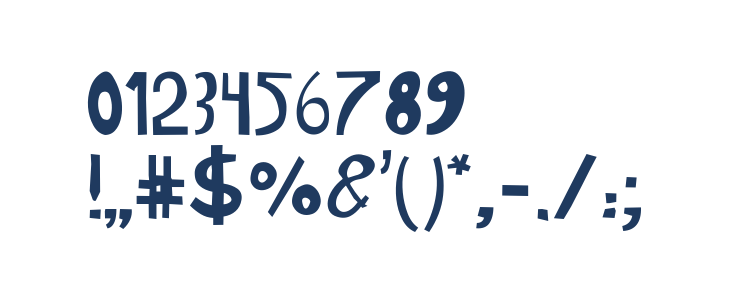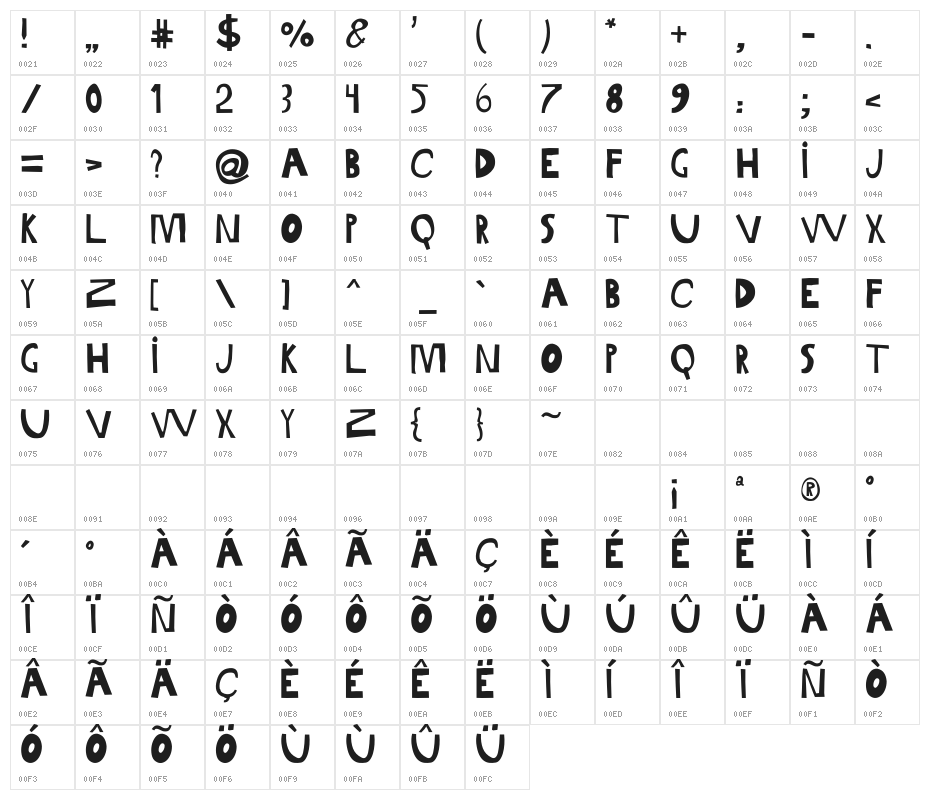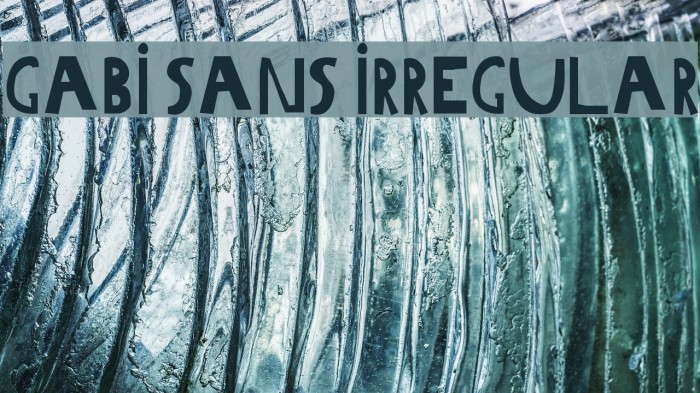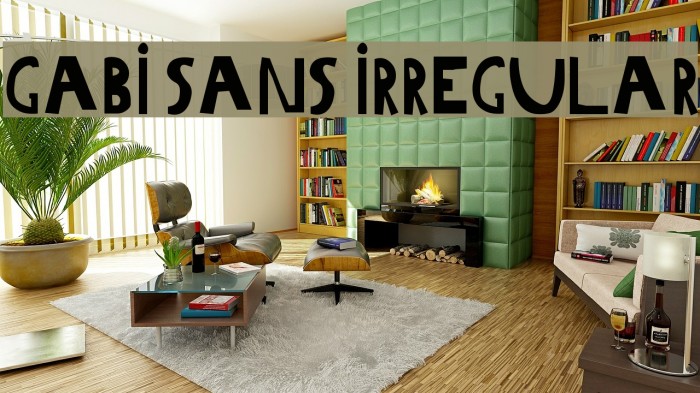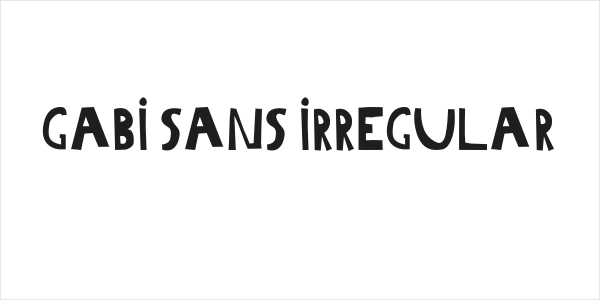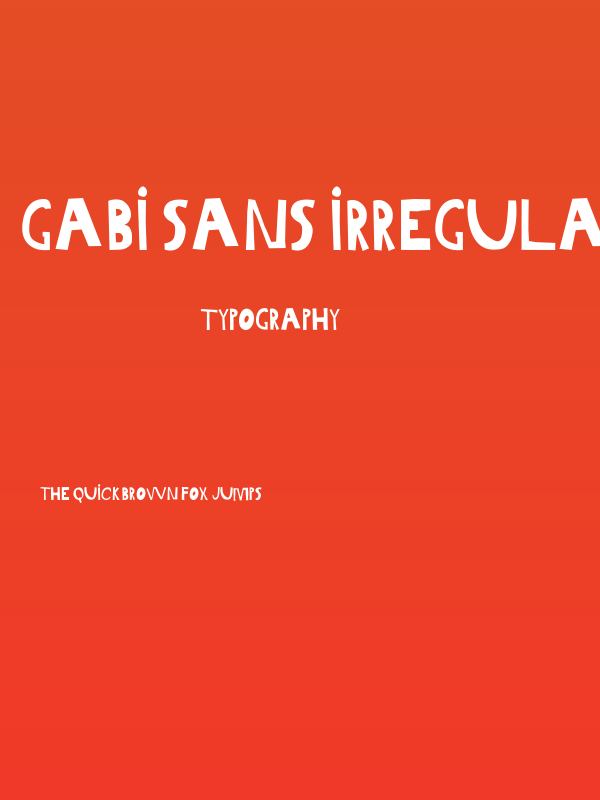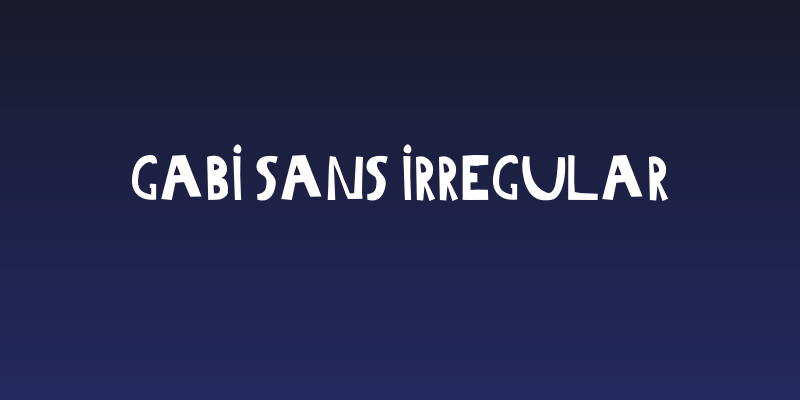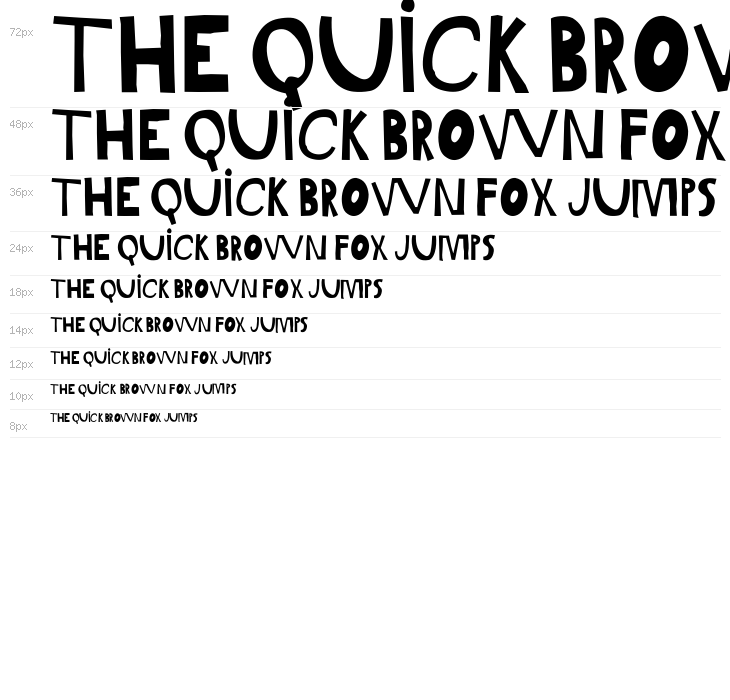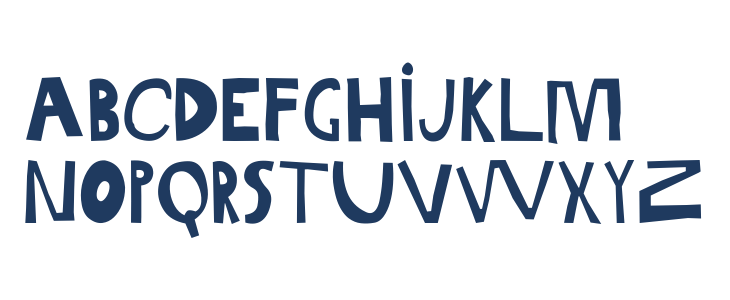
Gabi Sans Irregular Font
Gabi Sans Irregular Description
This font features a playful and irregular design, characterized by its bold and quirky letterforms. The uppercase and lowercase letters exhibit a unique, hand-drawn quality with varying stroke thicknesses that add a dynamic and lively feel. The numerals and special characters maintain this whimsical style, making the font ideal for creative and informal applications. Its distinct personality is evident in the exaggerated curves and angles, which contribute to its overall charm and appeal.
| Proposed Projects | Ideal for children's books, playful branding, creative posters, and informal invitations. |